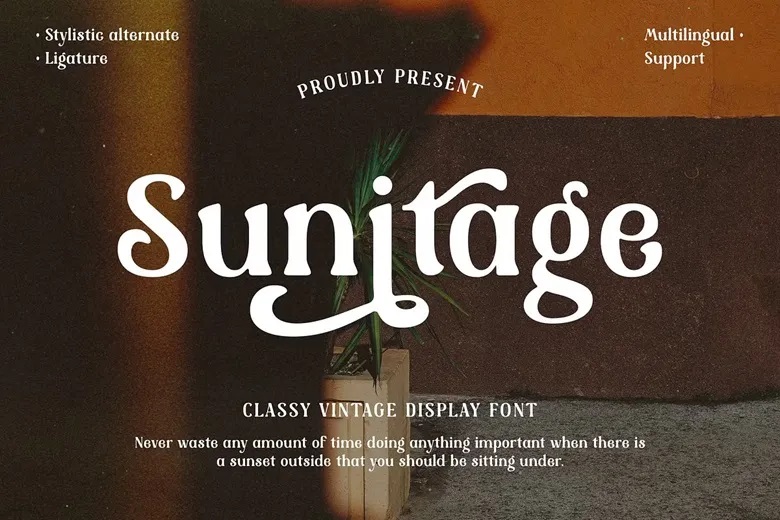
Sunitage Font
Sunitage is a classy display serif vintage font. It is a lowercase, uppercase, symbol, and is also multilingual. There is a lot of ligature on this font. Additional features of Sunitage font are ligatures, stylistic alternates, and many others. This font is good for fashion, branding, catalog and other design which you want.
Sunitage Serif Font